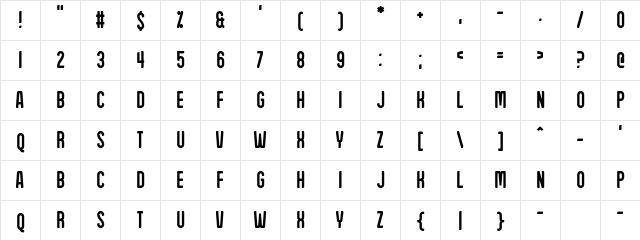
Sunday Afternoon Regular
| Designer | Allison JJ |
Design Context for Sunday Afternoon Typeface
Sunday Afternoon takes a measured approach to typography — its balanced proportions and neutral character make it a reliable workhorse for both digital and print work.